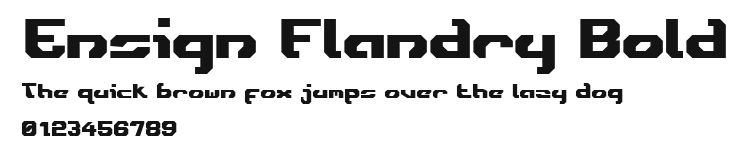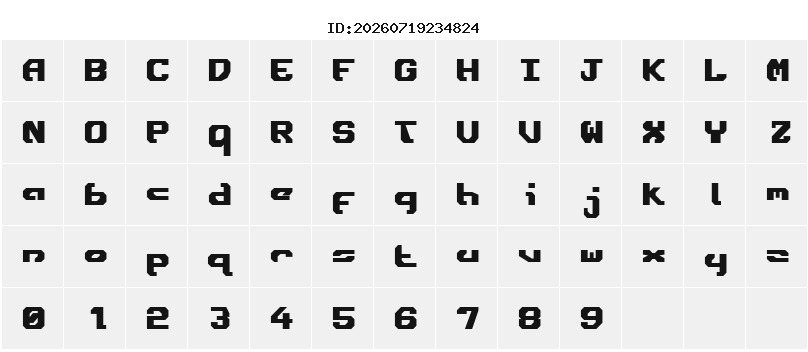
• Font Name: Ensign Flandry Bold
• Full Font Name: Ensign Flandry Bold
About Ensign Flandry Bold.ttf
Ensign Flandry Bold.ttf is a modern, elegant sans-serif font designed for ultimate readability and visual harmony. Perfect for branding, headlines, web design, and print materials.